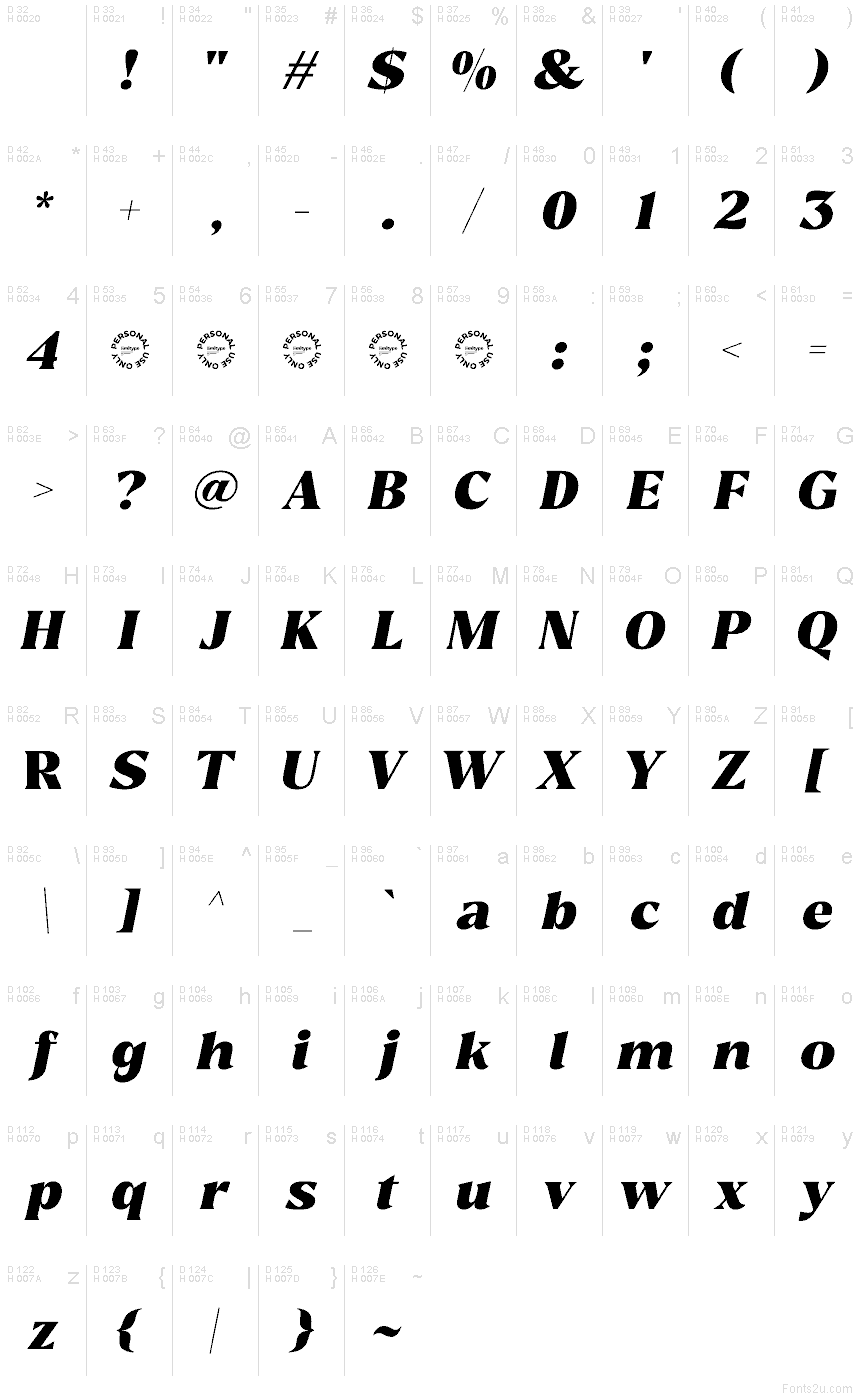
Reshiga Italic Demo
Reshiga Italic font by Limitype is a free serif display font. Part of the Reshiga family, it leans hard into motion: steep slant, muscular contrast, and sculpted wedge serifs that bite into the baseline. Strokes swell like inky brushwork, then snap to crisp terminals, giving headlines a taut, cinematic rhythm. The forms feel weighty yet agile, trading stiffness for a confident, forward glide.
Using Reshiga Italic, headlines snap to attention on fashion branding, magazine covers, luxury packaging, restaurant menus, posters, and bold book jackets. Its compact curves and punchy contrast carry short phrases with authority while staying readable at medium sizes. This free font shines when set large with a touch of tight tracking; pair it with a calm grotesk or a light text serif to let its drama take center stage.